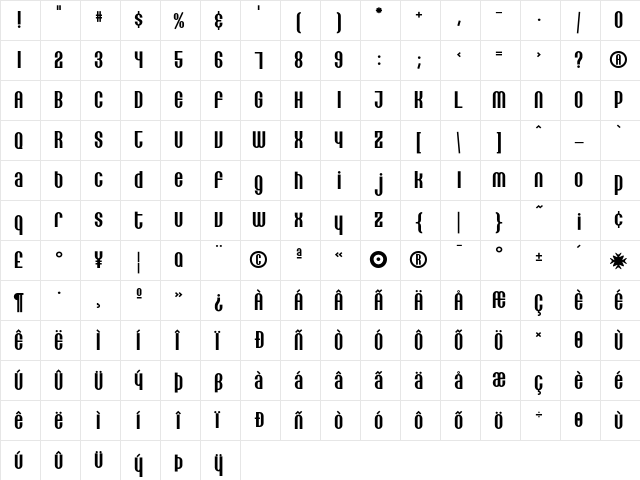
Lithia Bold
Design Context for Lithia Typeface
Lithia is a composed and adaptable typeface that performs quietly and consistently across a wide range of design contexts. The heavy weight commands attention and anchors typographic hierarchies.
Pro Tip: Pair Lithia with a font of contrasting weight or personality to build a more expressive typographic hierarchy.